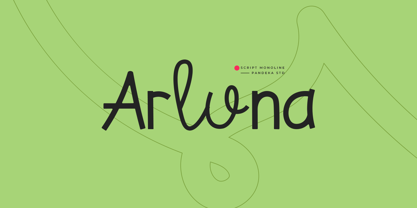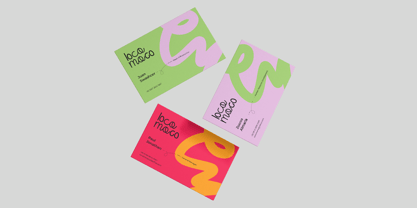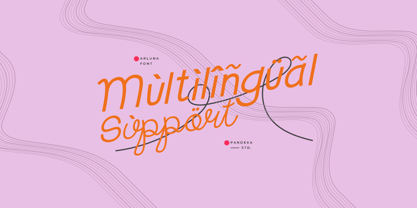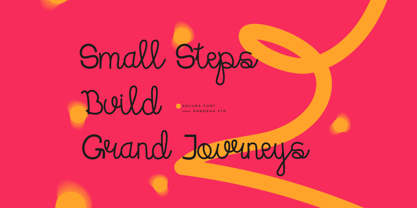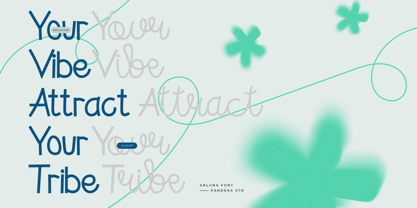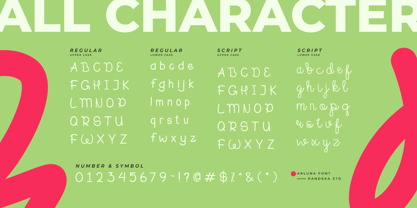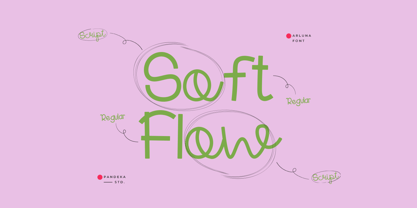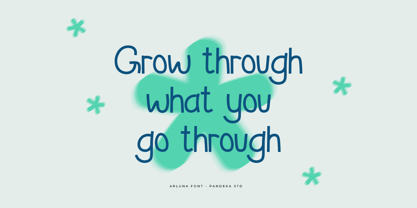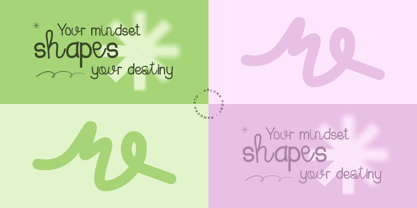
Arluna
by Pandeka Studio
The Arluna Font Family was designed by Sagara Nararya and published by Pandeka Studio. Arluna contains 2 styles and family package options.
Arluna is a casual modern script font with uniquely crafted, flowing letterforms.
Perfect for branding, invitations, social media, and elegant typography, Arluna adds a charming and sophisticated touch to any design! ✨
• 2 Style: Regular and Script
• Full Character Set: Uppercase, lowercase, numbers, symbols, and punctuation
Designers: Sagara Nararya